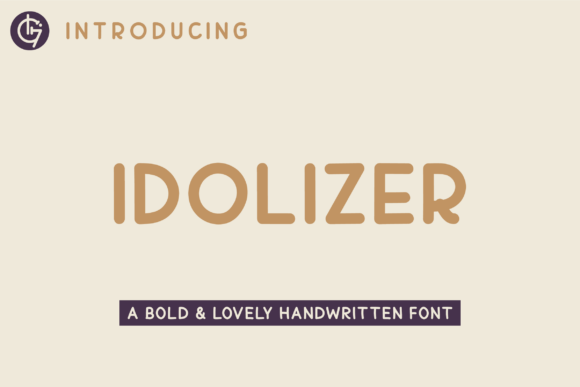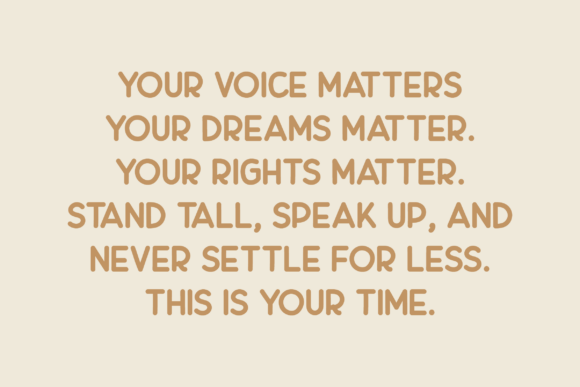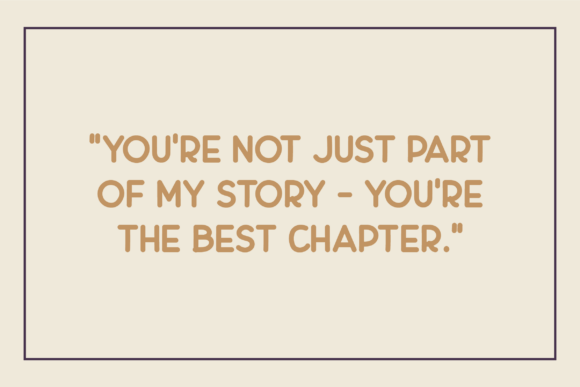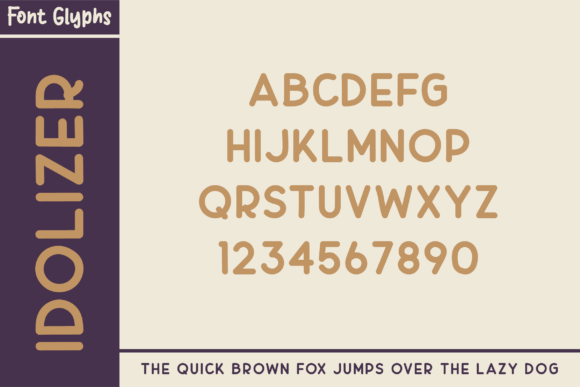
Idolizer Font: A Bold Handwritten Font for Authentic Branding
About the Idolizer Font
From logos to headlines, the Idolizer Font is the perfect choice for making a lasting impression. Make an impact with Idolizer, a handwritten font that combines a strong, bold presence with a charming, personal touch. Ideal for branding, packaging, social media, and print, its unique style adds warmth and authenticity to any design. Achieve a professional yet approachable aesthetic with it.
Idolizer excels in headlines, short text blocks, and logos, adding a touch of handcrafted authenticity. Its bold strokes command attention, making it perfect for branding projects aiming for a confident yet approachable feel, or packaging designs needing a strong visual hook. However, its handcrafted nature makes it less suitable for body text or lengthy paragraphs; legibility suffers at smaller sizes.
For optimal pairings, consider a clean sans-serif like Montserrat for a modern contrast, or a classic serif such as Garamond for a more traditional balance. A playful script font could also complement its bold character, providing a secondary layer of personality.
Idolizer’s overall personality is bold and friendly, conveying both strength and approachability. It’s ideal for brands focused on handcrafted goods, artisanal products, or those seeking a personal connection with their audience.
Idolizer Font Usage Examples
Idolizer Font Example